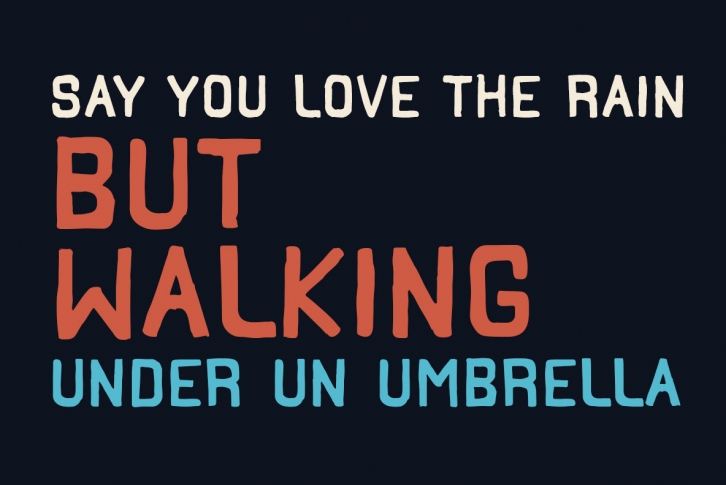
Hors is a distressed, multilingual typeface designed by Dima Pole. It contains 6 font styles, each containing over 500 glyphs. It also contains OpenType features such as: Oldstyle Numerals, Tubular Numerals, Localized Forms, Fractions, Subscript, Ordinals, Slashed Zero etc.